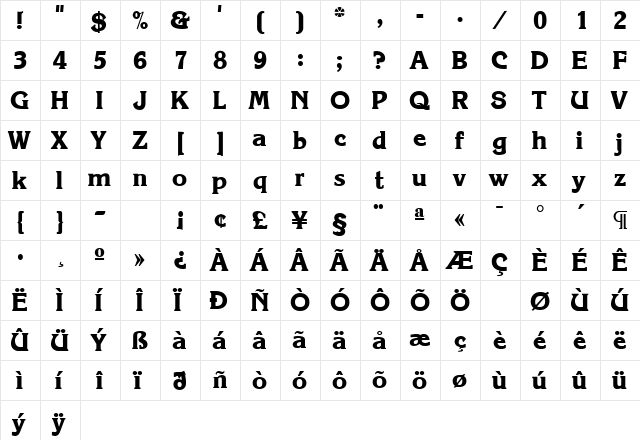
KlingBold Bold
Design Context for KlingBold Typeface
KlingBold offers clean, dependable letterforms without strong stylistic allegiance, making it a practical choice for designers who need flexibility. Its bold stroke weight gives it real presence on the page.